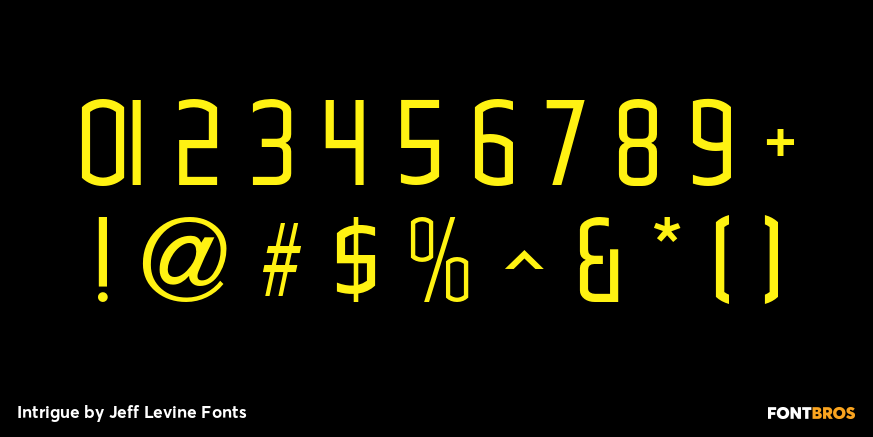
Intrigue
The hand-lettered movie titles from one of the William Powell-Myrna Loy 'Thin Man” series of films was the basis for Intrigue JNL.
Although the lettering style is decidedly from the Art Deco era, it also bears a strong resemblance to the 1980s techno movement; this font being adaptable to any era or design theme.